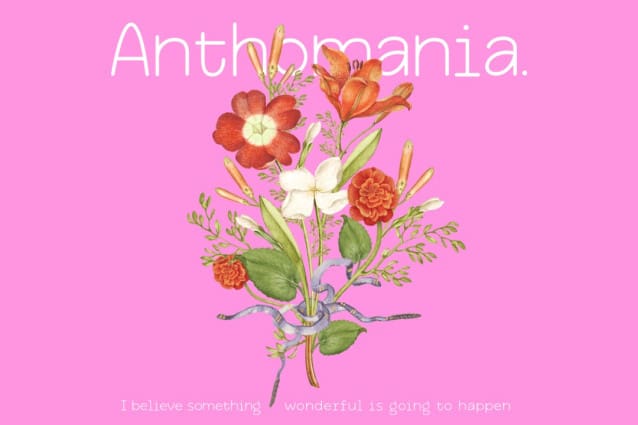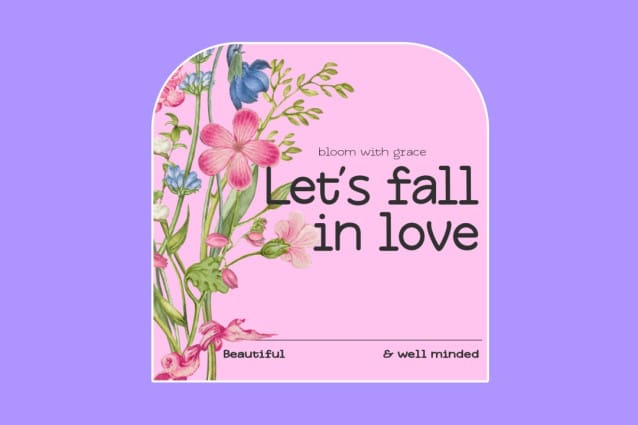
Softglyphs Font
Softglyphs Font, It would be a perfect choice to design posters, affiches, logos, t-shirt and magazine prints, eye-pleasing typographic designs and more.